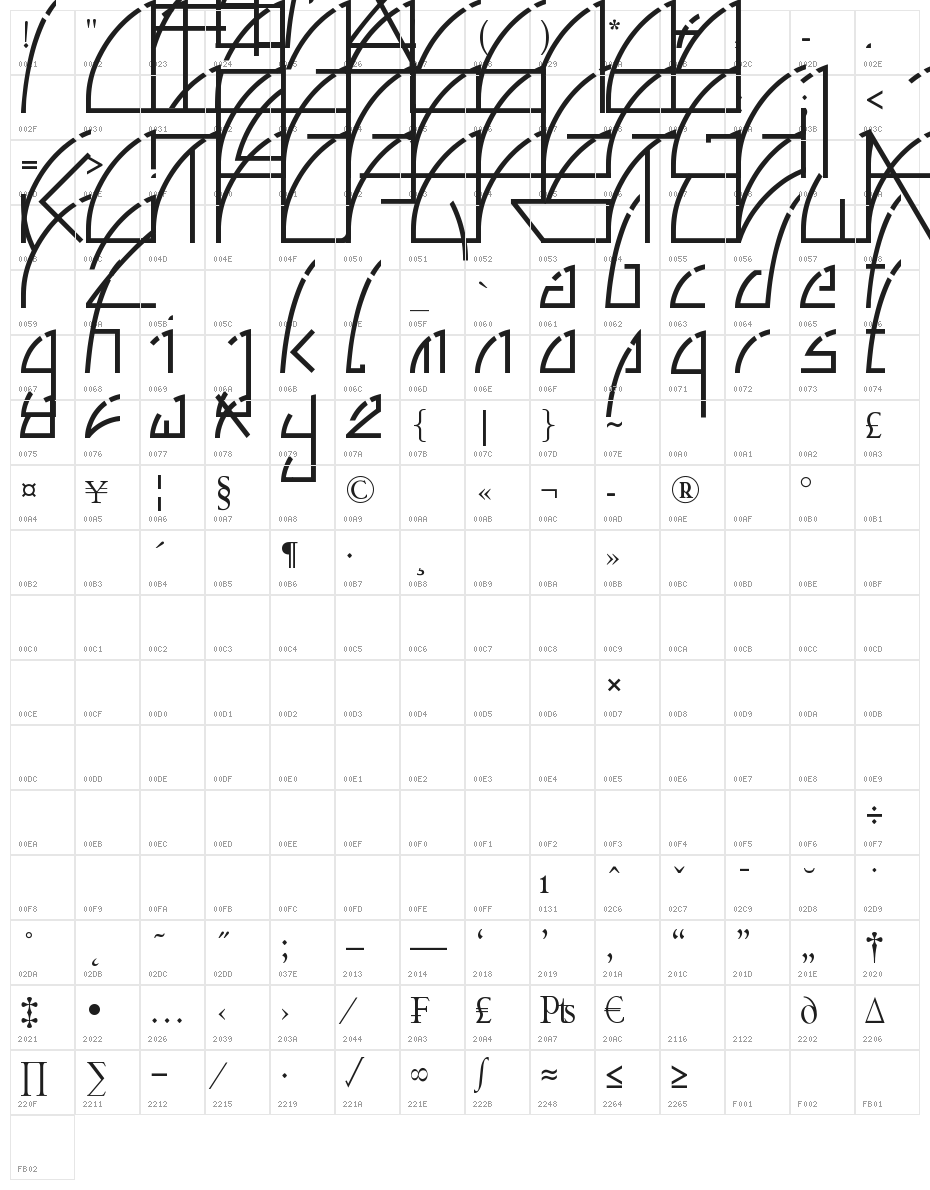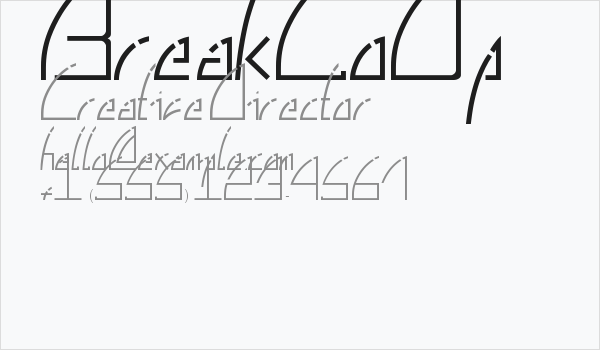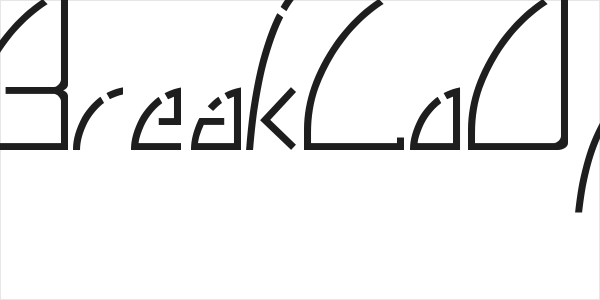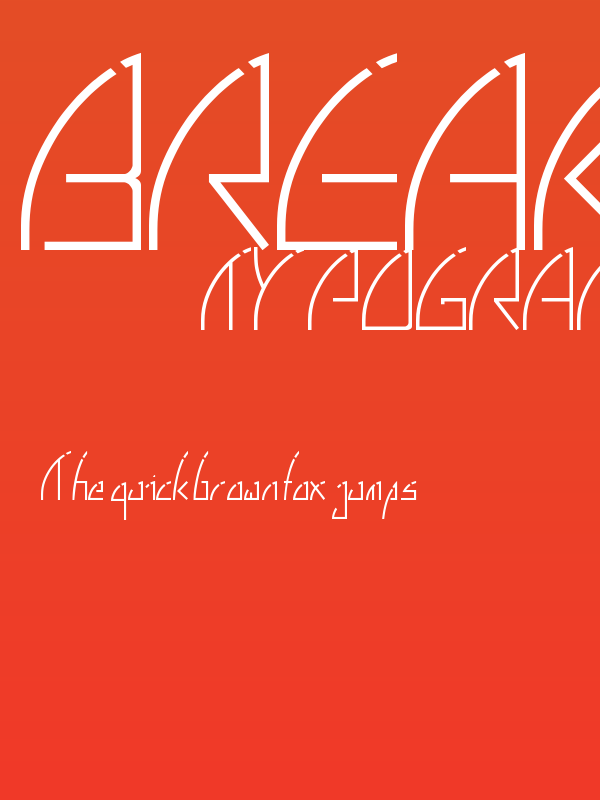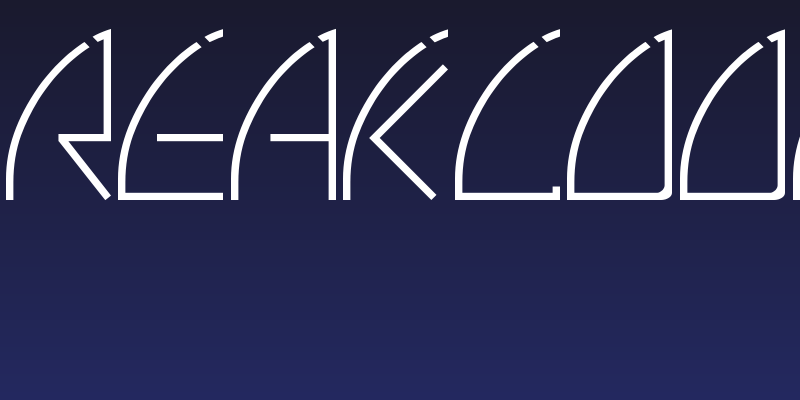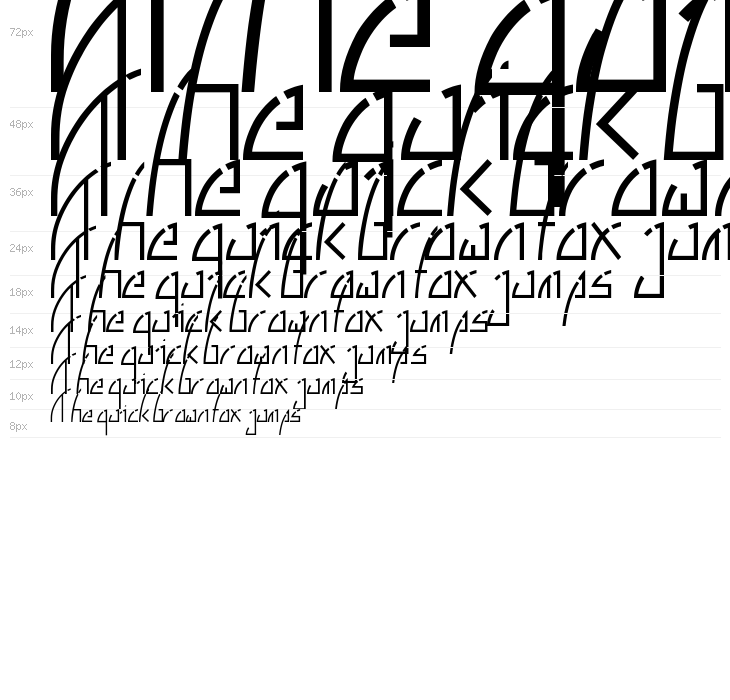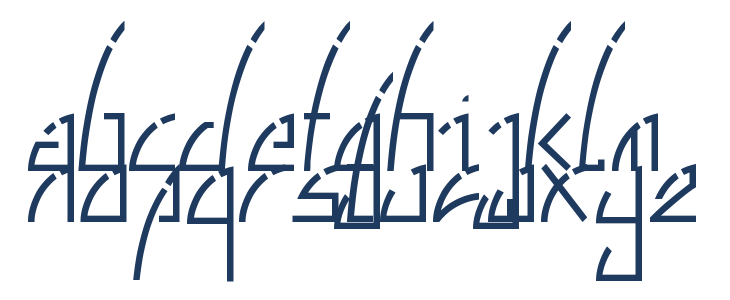
BreakLoOp Font
BreakLoOp Description
This font features a unique and modern design with a geometric and angular style. The characters are composed of straight lines and sharp angles, giving it a futuristic and digital appearance. The uppercase letters are distinct with a consistent height and width, while the lowercase letters maintain a similar angular style, creating a cohesive look. Numbers and special characters follow the same design principles, ensuring uniformity across all elements. The font's clean and minimalistic approach makes it suitable for contemporary design projects.
| Overall Style | Futuristic |
| Use Case | Logos, Headlines, Digital interfaces |
| Proposed Projects | Ideal for tech-related branding, digital interfaces, modern posters, and futuristic design themes. |